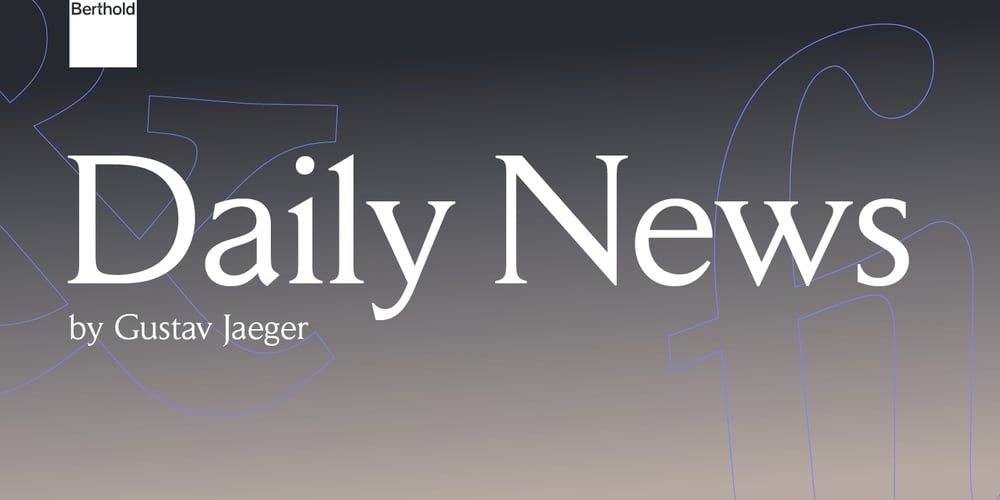
Daily News Font Family was designed by Gustav Jaeger and published by Berthold. Daily News contains 8 styles and family package options. German graphic designer Gustav Jaeger designed Daily News for Berthold in 1976.